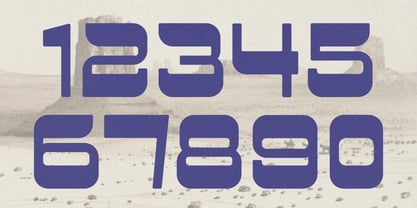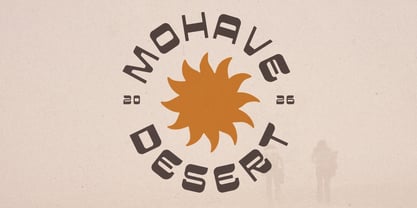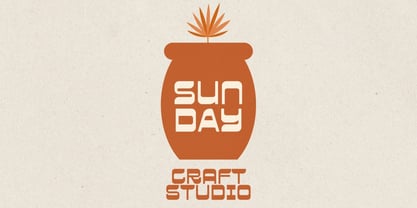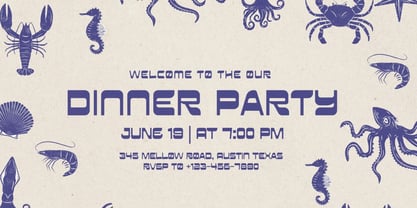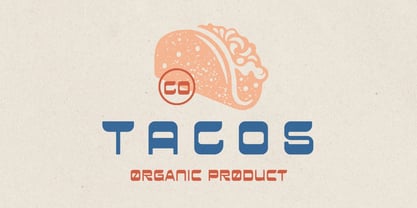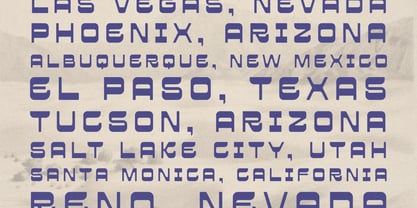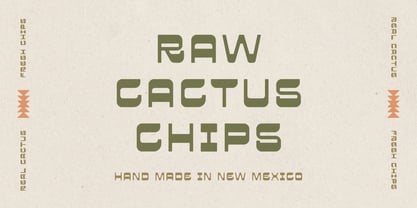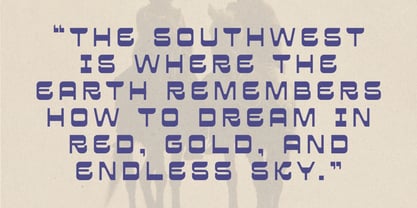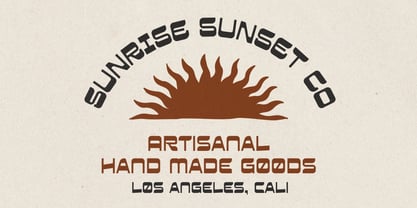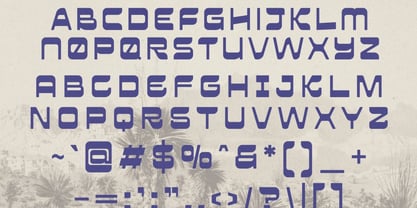
Santa Mesa
by Hipfonts
The Santa Mesa Font Family was designed by Igor Ovsyannykov and published by Hipfonts. Santa Mesa contains 1 styles. More about this family
Introducing Santa Mesa, a warm and expressive Southwest-inspired typeface infused with boho spirit, desert soul, and rustic western character. This font brings the charm of dusty sunsets, adobe towns, and vintage cowboy culture straight into your designs. With its bold shapes, organic curves, and handcrafted feel, Santa Mesa captures a beautiful blend of bohemian artistry and southwestern grit — perfect for designers seeking a typeface that feels both adventurous and stylishly laid-back. Whether you're designing for cowboy-themed branding or boho-inspired visuals, Santa Mesa delivers unmistakable personality.
Designers: Igor Ovsyannykov
Foundry: Hipfonts
Santa Mesa